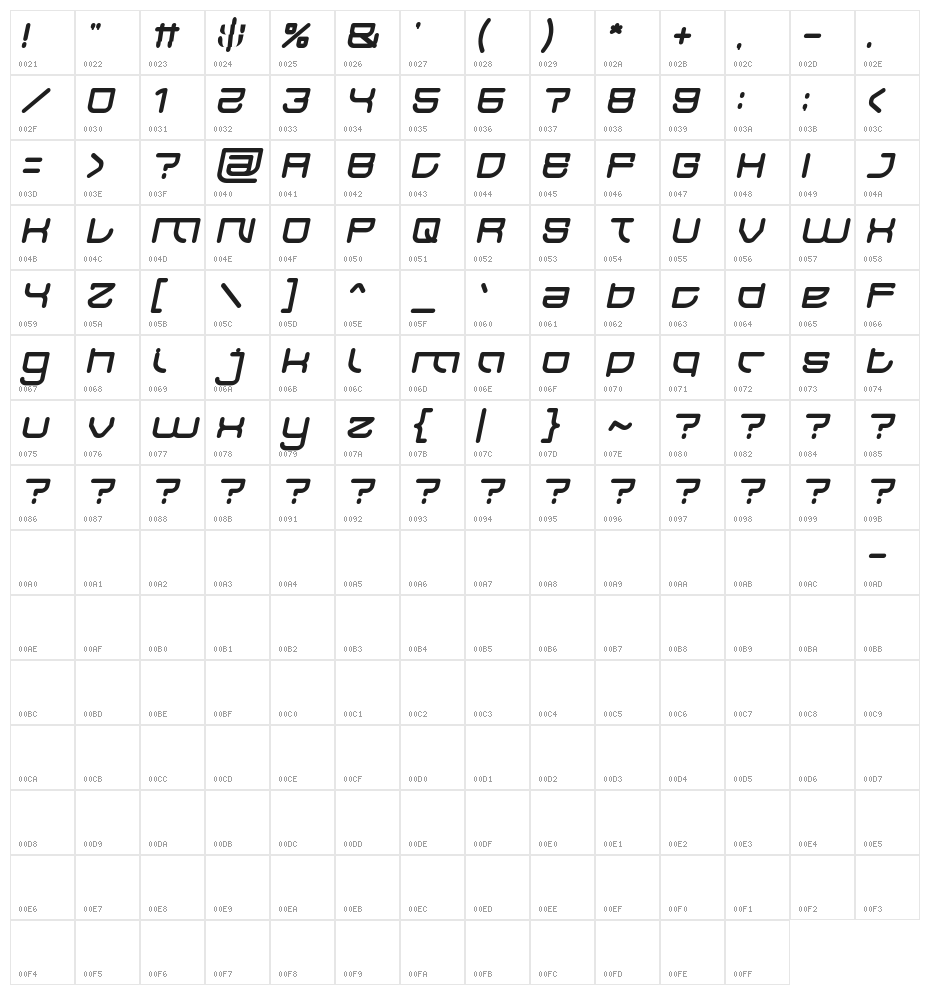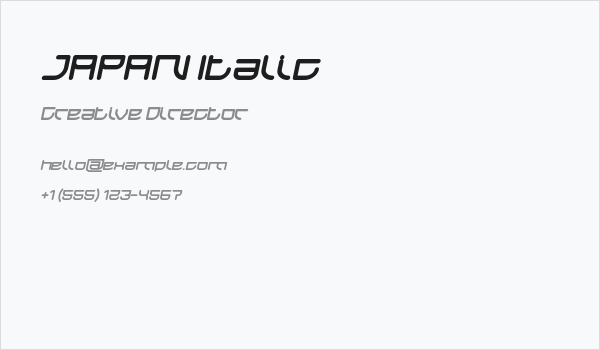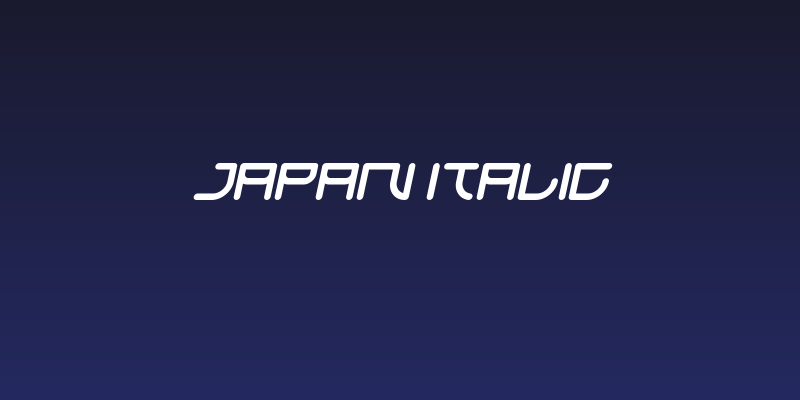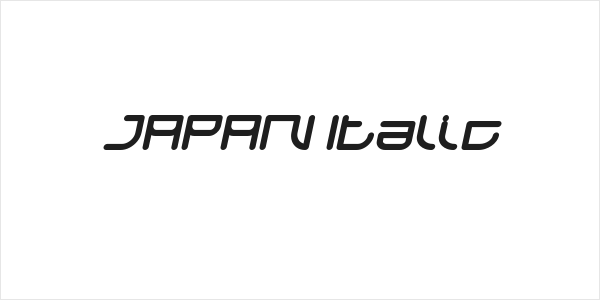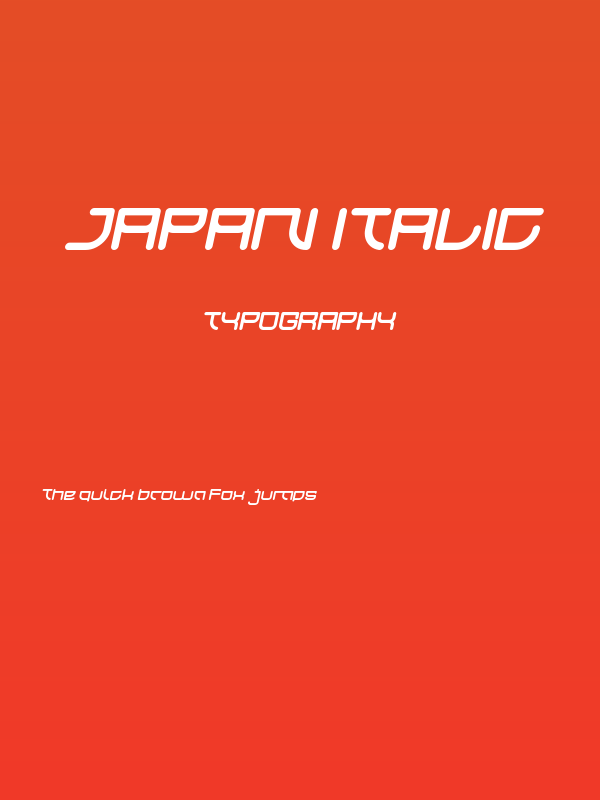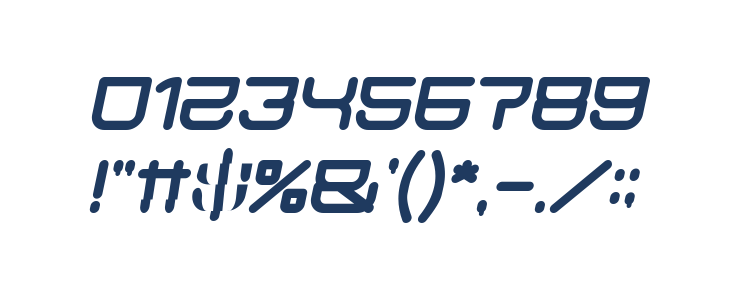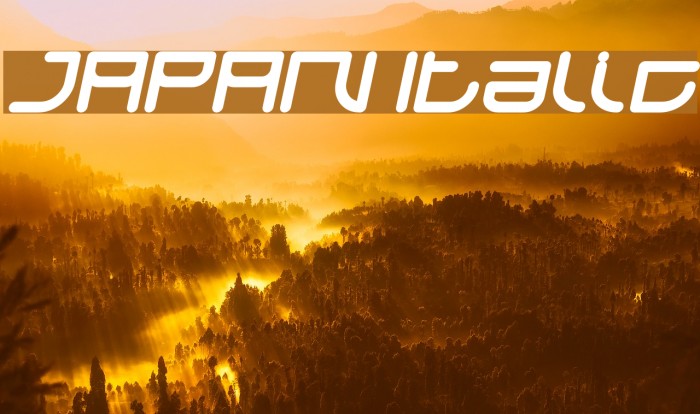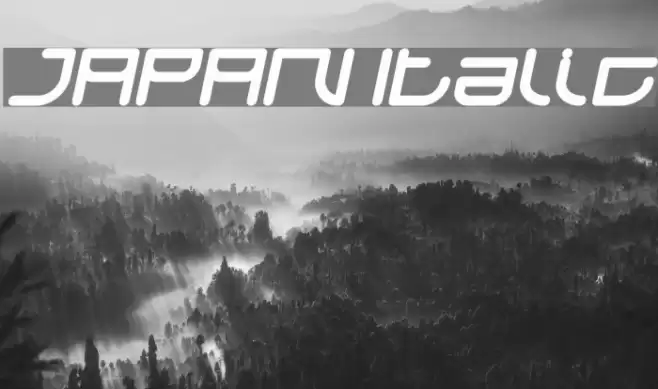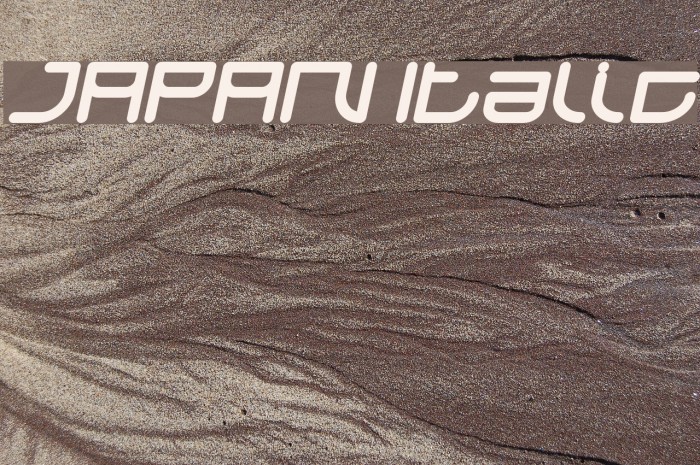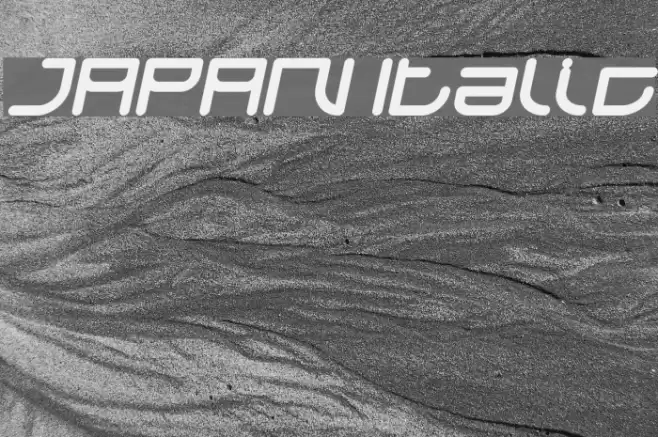
JAPAN Italic Font
This font features a sleek, modern design with a distinct italic slant, giving it a dynamic and forward-moving appearance. The characters are crafted with a uniform stroke width, contributing to a clean and streamlined look. The rounded edges and smooth curves add a touch of softness, balancing the overall geometric structure. The uppercase and lowercase letters maintain a consistent style, ensuring readability and cohesion. Numbers and special characters are designed to match the font's aesthetic, making it versatile for various applications. The font's futuristic vibe makes it suitable for technology-related projects, branding, and contemporary design themes.
| Proposed Projects | Ideal for technology branding, modern advertising, futuristic designs, and digital interfaces. |